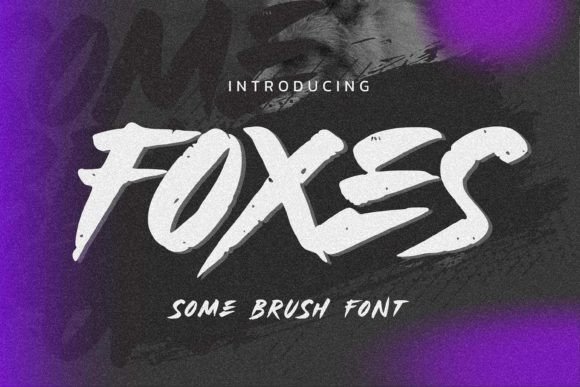
Behold, Foxes Font - The Epitome of Creative Expression!
Journey into a world of captivating typography with Foxes Font, a brush display font that dances with natural textures and exudes dramatic movement. This font is a masterpiece carefully crafted by Gassstype Studio, designed to ignite your creativity and bring your visions to life.
As a font family belonging to the display category, Foxes Font possesses an innate ability to capture attention and elevate your designs. Its bold strokes command presence, while its textured edges add depth and intrigue. Whether you're a seasoned designer or just starting your creative journey, Foxes Font is your perfect companion.
With Foxes Font, you can transform your ideas into stunning logos that speak volumes about your brand. Its bold presence is perfect for creating impactful headers that demand attention. Unleash your creativity with invitations and cards that exude elegance and charm. Product packaging, stationery, and special events take on a whole new dimension with Foxes Font, adding a touch of exclusivity and sophistication that sets you apart.
Foxes Font is not just a font; it's an invitation to explore the boundless realms of your imagination. Its versatility knows no bounds, adapting seamlessly to any project you envision. Let your words dance across the page with a captivating rhythm, leaving an indelible mark on your audience.
Step into the spotlight with Foxes Font and watch as your designs come alive with a captivating allure. Embrace the power of typography and make a bold statement that resonates with your audience. Let your creativity soar and embark on a journey of self-expression, leaving a legacy of stunning visual masterpieces.